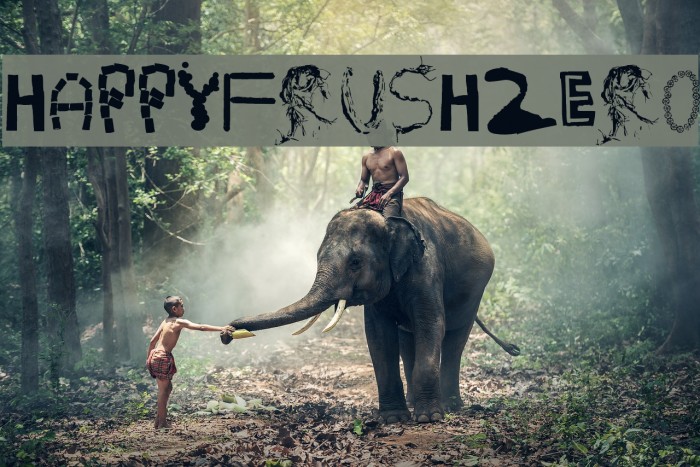
HappyFrushZero Font
This font is a highly creative and eclectic display typeface, featuring a diverse range of artistic elements within each character. Each letter and number is uniquely designed with various textures and motifs, such as floral patterns, mechanical gears, and abstract shapes. The font exhibits a playful and experimental style, making it visually striking and ideal for artistic projects. The characters are bold and have a strong presence, with varying levels of detail and intricacy. This font is not uniform in style, as each character seems to tell its own story through its design.
A creative and eclectic display font with unique textures and motifs in each character.
- Proposed Projects: Ideal for artistic projects, posters, album covers, and any design work that requires a bold and unique visual impact.
- Overall Style: Decorative
- Use Case: Logos, Posters, Artistic Projects